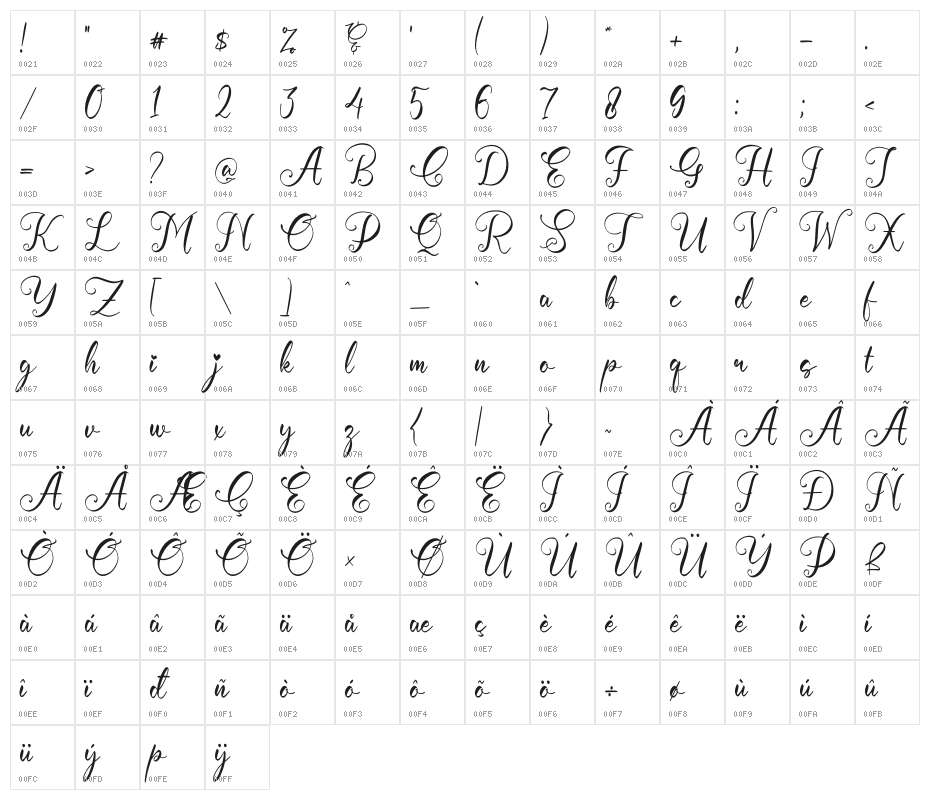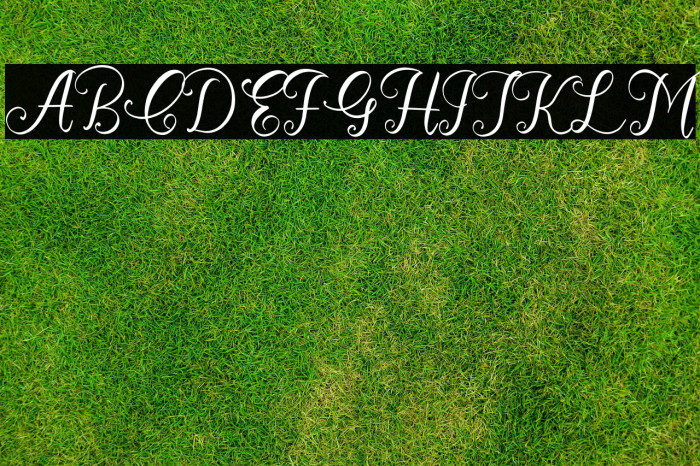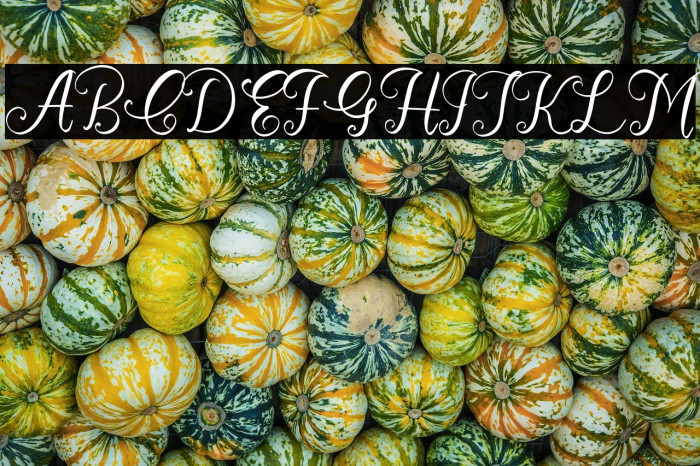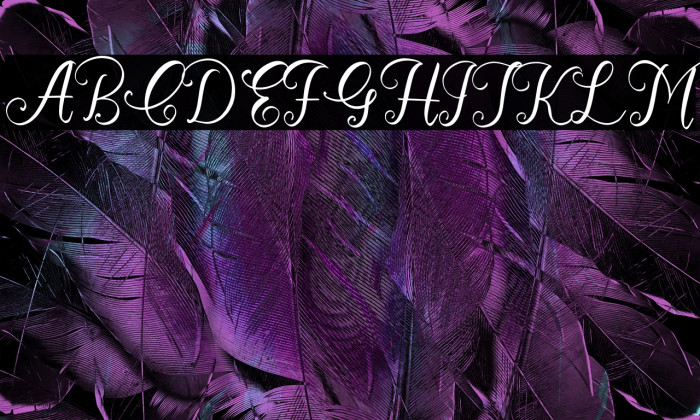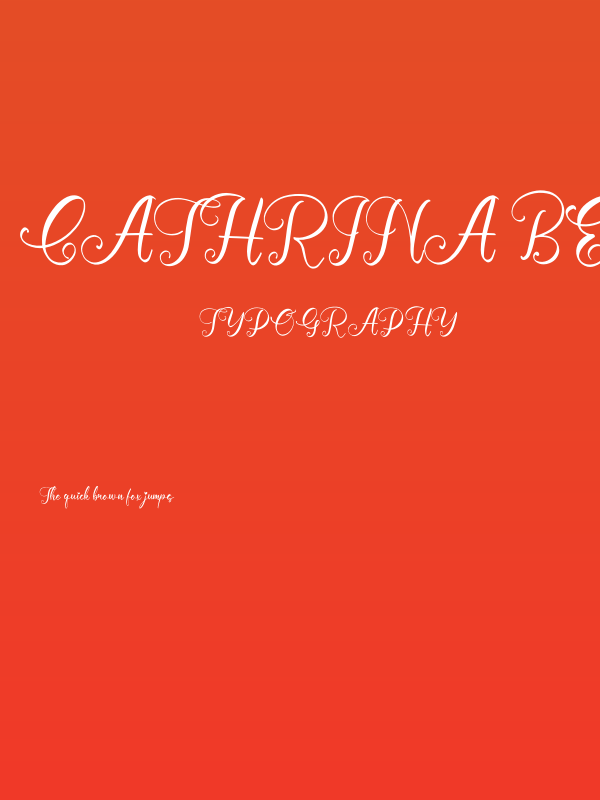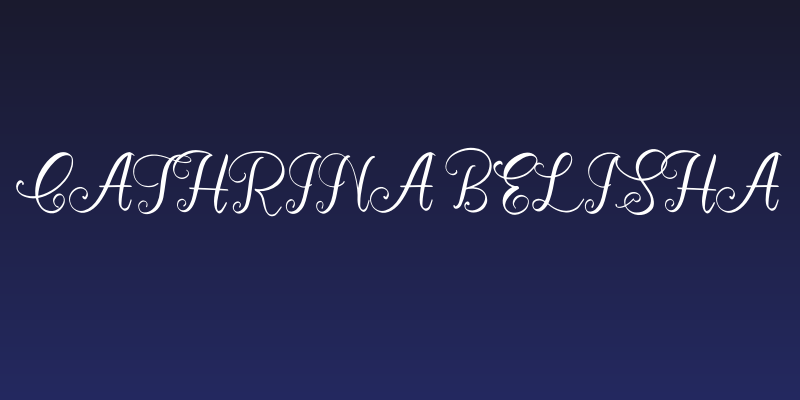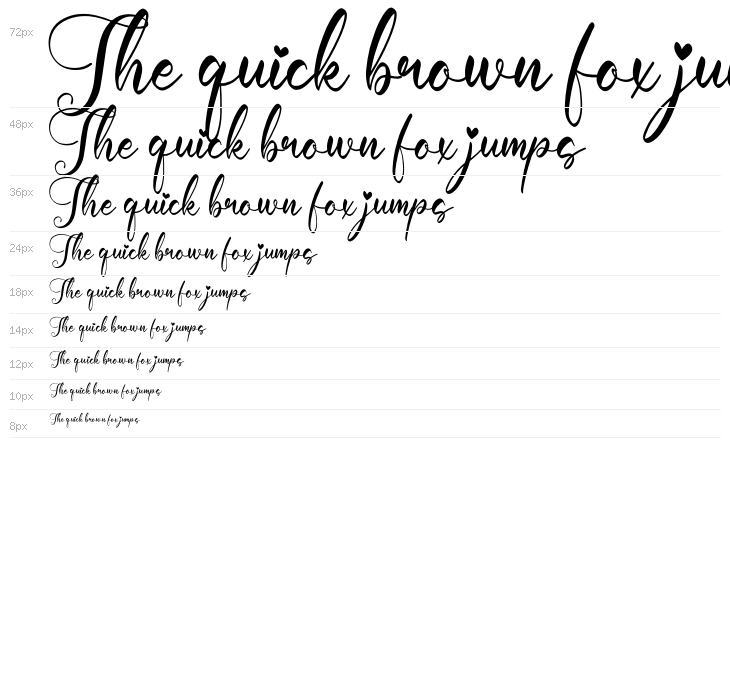
Cathrina Belisha Font
Cathrina Belisha Description
This elegant script font features a flowing, cursive style with intricate loops and swirls, giving it a sophisticated and artistic appearance. The uppercase letters are characterized by their ornate flourishes, while the lowercase letters maintain a smooth and connected flow. The numerals are designed with a similar flair, adding a touch of elegance to any numerical display. Special characters are thoughtfully integrated, maintaining the overall aesthetic of the font. This font is ideal for projects that require a touch of class and creativity.
| Proposed Projects | Ideal for wedding invitations, elegant branding, greeting cards, and artistic projects. |